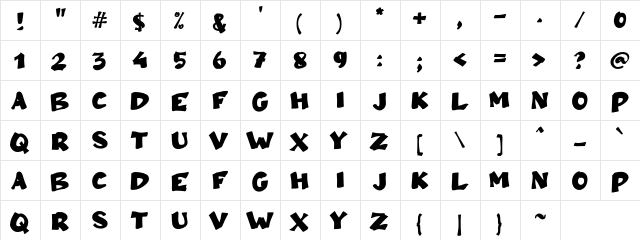
a Ampun Bang Regular
| Designer | Wahyu Eka Prasetya |
Design Context for a Ampun Bang Typeface
a Ampun Bang is a composed and adaptable typeface that performs quietly and consistently across a wide range of design contexts.